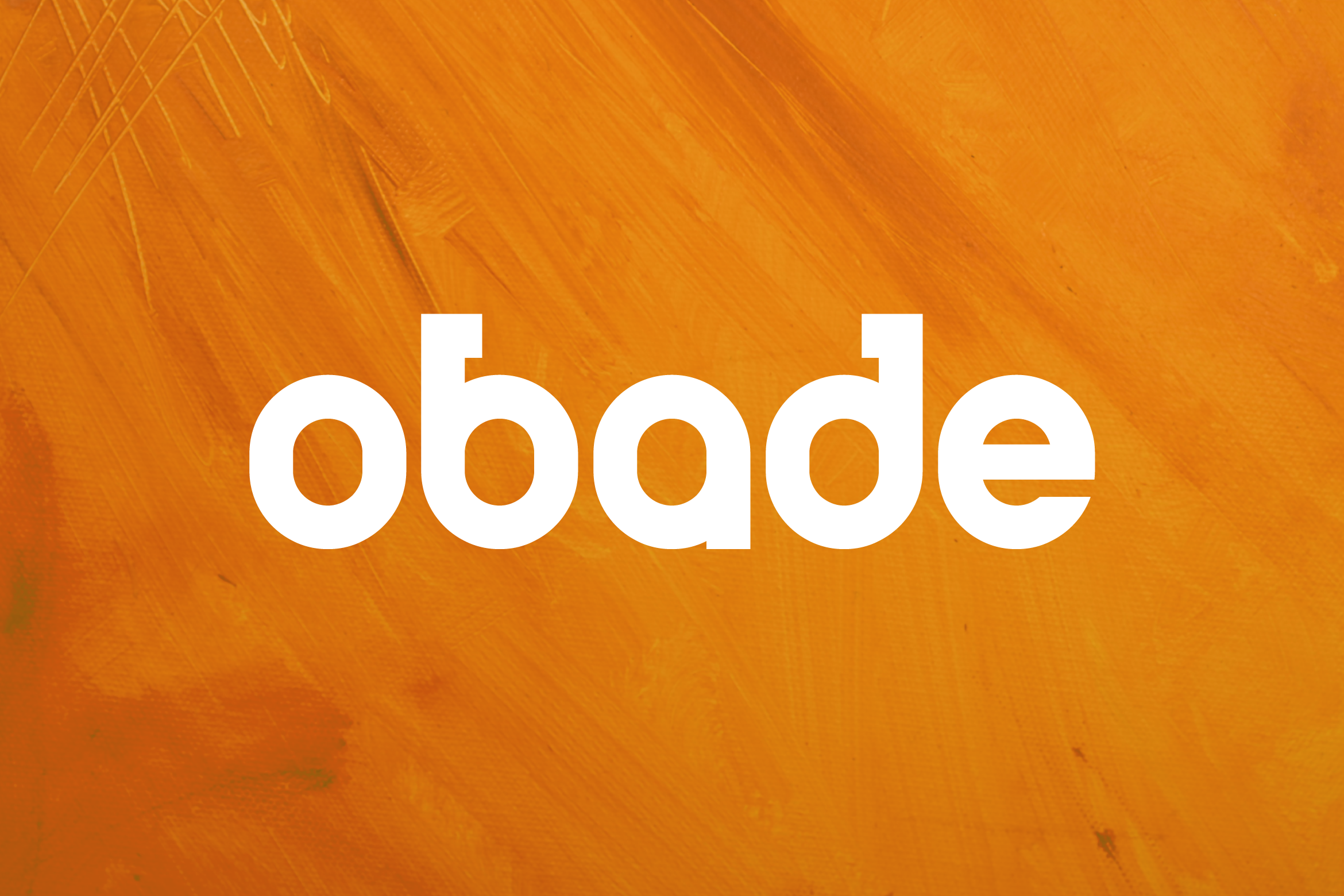
Obade is a sleek and impactful display font created specifically for logo design and strong visual identities. With its clean lines, geometric precision, and bold letterforms, Obade delivers a professional and contemporary look that ensures your brand stands out.
Perfect for logos, packaging, headlines, and minimalist branding, Obade combines simplicity with strength, making it versatile for industries like fashion, technology, lifestyle, and creative agencies. Its sharp details and balanced proportions give your typography a premium, memorable feel.
Obade includes uppercase and lowercase letters, numerals, punctuation, and multilingual support for global usability. Whether you’re designing a brand mark, a striking headline, or a digital graphic, Obade provides the foundation for bold, modern aesthetics.
Make a statement with Obade — the logo display font that defines clarity and sophistication.